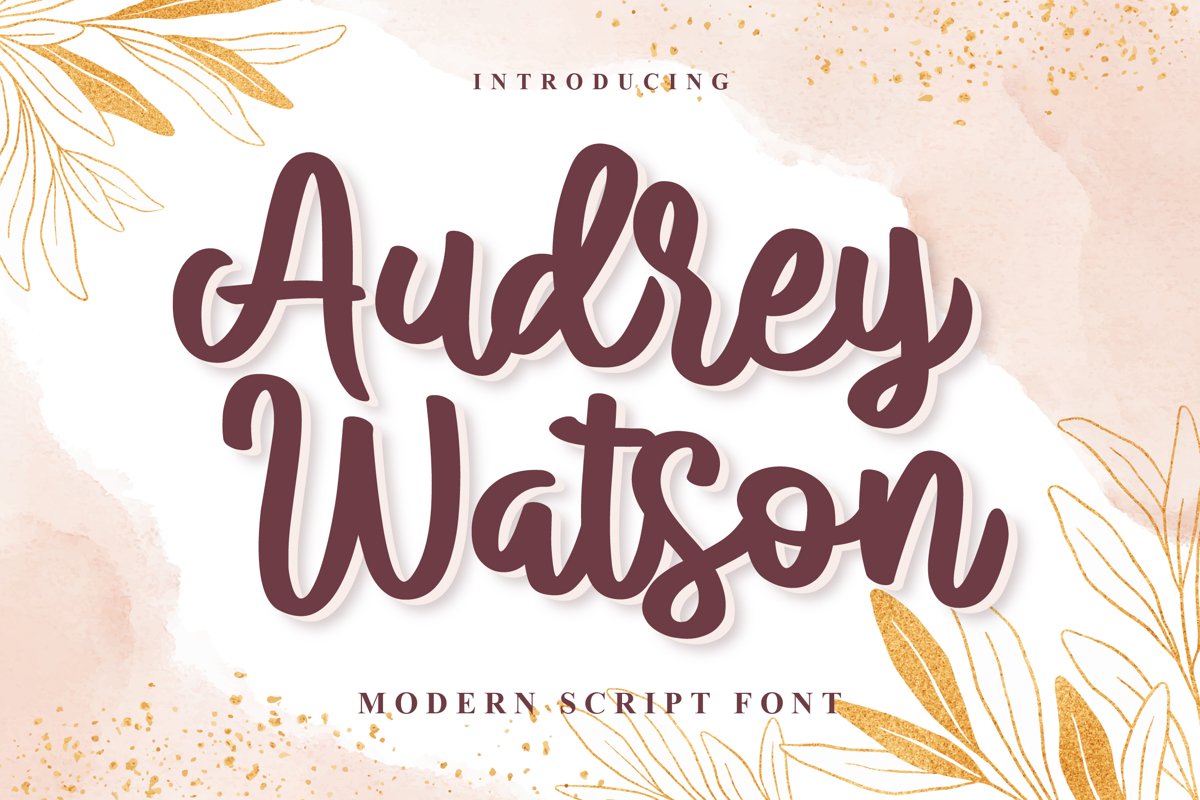
Audrey Watson - Modern Script Font
Audrey Watson
Audrey Watson is A modern script font. It is a sweet and beauty font. Its natural style it will elevate a wide range of design projects to a better level, be it branding, headings, quote, wedding designs, invitations, greeting card, t-shirt, labels, and much more!